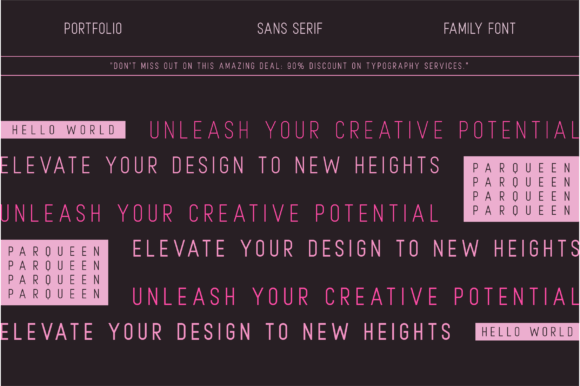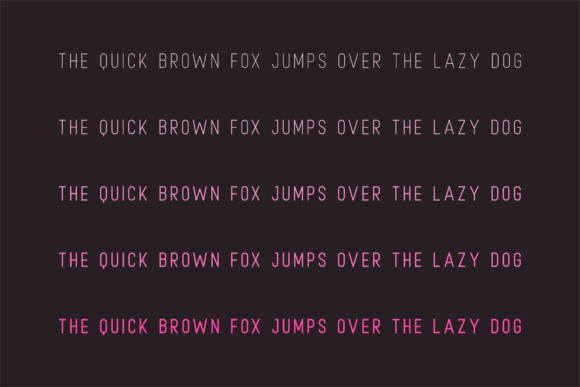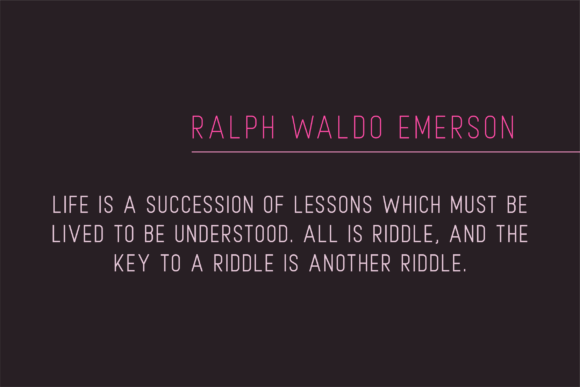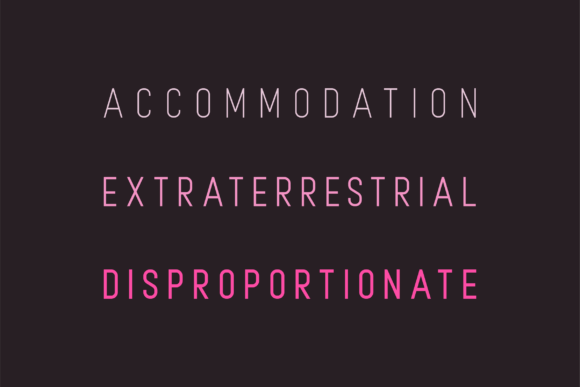
Introduction to Parqueen Font
Have you ever been working on a creative project, pouring your heart and soul into a design, only to feel like something’s missing? A crucial element that elevates your work from good to great? For designers, the right font can make all the difference. That’s why we’re excited to introduce you to the Parqueen Font Family – a game-changing design resource that’s about to become your new go-to.
With its sleek, modern aesthetic and versatile range of weights, Parqueen Font is the perfect companion for any creative endeavor. Whether you’re crafting a logo with a transparent background or designing a magazine spread, this high-quality font family has got you covered. And the best part? It’s now available for a free download, making it an accessible and valuable addition to your design arsenal.
About the Parqueen Font Family
Key Features of Parqueen Font
- High-quality design resource with a unique, creative touch suitable for various creative projects.
- Features a transparent background, making it easy to use in digital design applications.
- Designed with a high-resolution, 300 DPI, making it suitable for both print and digital use.
- Includes a range of styles and weights, allowing designers to add versatility to their designs.
- Perfect for designers looking for a free, high-quality design resource to enhance their creative projects.
- Supports various languages, making it a great choice for international design projects.
Honest Review: Parqueen Font
I recently stumbled upon the Parqueen Font and was excited to dive in and see what it had to offer. As a designer, I’m always on the lookout for high-quality design resources to elevate my creative projects.
First impressions: the Parqueen Font is sleek, modern, and packs a punch. The font is available for free download, which is always a major plus. The transparent background is a nice touch, allowing for seamless integration into any design.
- High-quality design aesthetic
- Transparent background for versatile use
- Limited character set, which may not be suitable for long-form content
- May not be suitable for bold, dramatic headlines
Overall, I’m impressed with the Parqueen Font. While it may not be perfect, it’s a solid addition to any designer’s toolkit. With a little creativity, it can elevate even the most mundane design projects. ✨
How to Use Parqueen Font
The Parqueen Font is a high-quality, versatile design resource ideal for creative projects. This font offers a unique aesthetic and can be easily customized to suit your needs.
Tips for Getting the Most Out of Parqueen Font
To maximize the impact of the Parqueen Font, experiment with different font sizes, colors, and combinations. You can also use it with a transparent background to create a modern and sleek design.
The Parqueen Font is perfect for a wide range of creative projects, including branding, marketing materials, social media graphics, and more.
Compared to Parqueen Font, Great Vibes Font has a more elegant and refined feel, making it suitable for a wider range of design applications. It’s available for free download and can be used for both personal and commercial projects.
Carolyna Pro Font is a modern, stylish font that’s perfect for designers who want to add a touch of glamour to their creative projects. It’s ideal for use in branding, packaging, and other design resources where a high-quality, elegant font is desired. Carolyna Pro Font is a great alternative to Parqueen Font for designers who want a more modern and sophisticated look.
Compared to Parqueen Font, Carolyna Pro Font has a more modern and sleek feel, making it suitable for a wider range of design applications. It’s available for free download and can be used for both personal and commercial projects.
Does the Parqueen Font have a transparent background?
Yes, the Parqueen Font has a transparent background, making it easy to combine with other design elements and create a seamless visual effect. This feature is particularly useful when working on creative projects that require a high level of design flexibility.